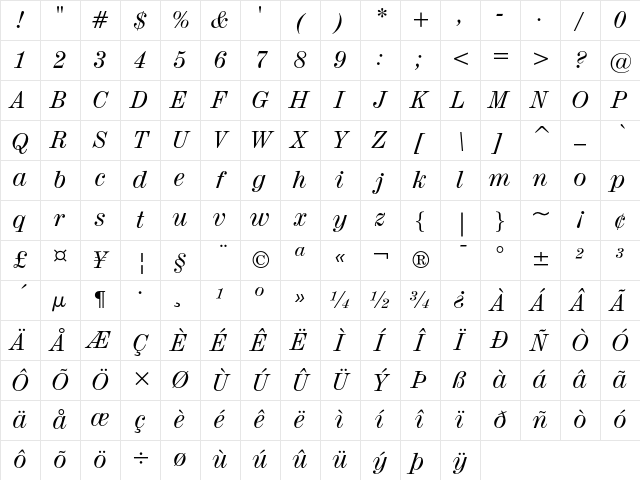
Century 725 Italic
Design Context for Century 725
Century 725 is a composed and adaptable typeface that performs quietly and consistently across a wide range of design contexts. The slanted form adds forward momentum and visual energy.
Pro Tip: Use Century 725 for emphasis, pull quotes, and subheadings where its slanted energy can add rhythm to the layout.